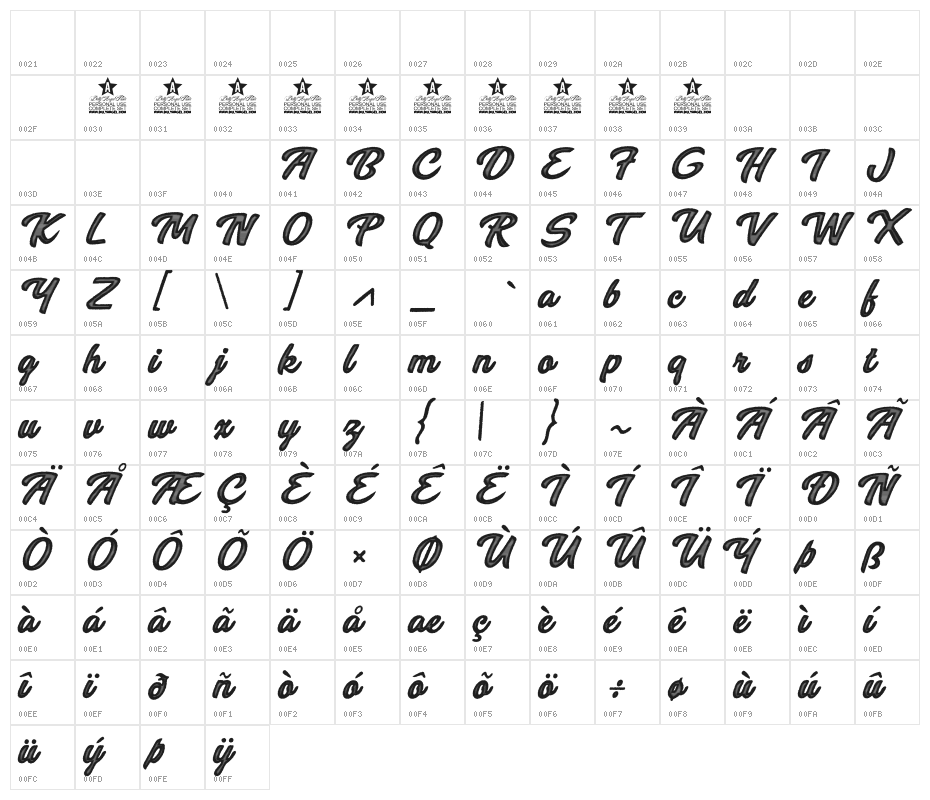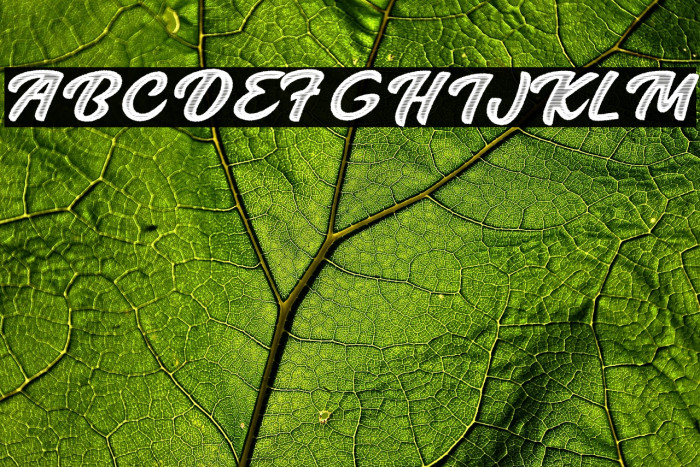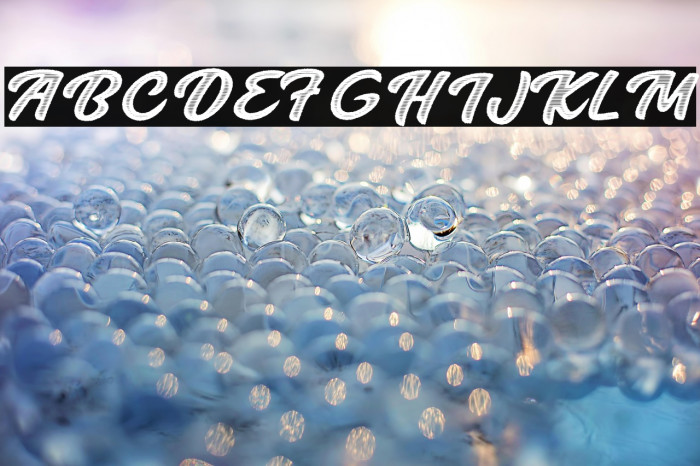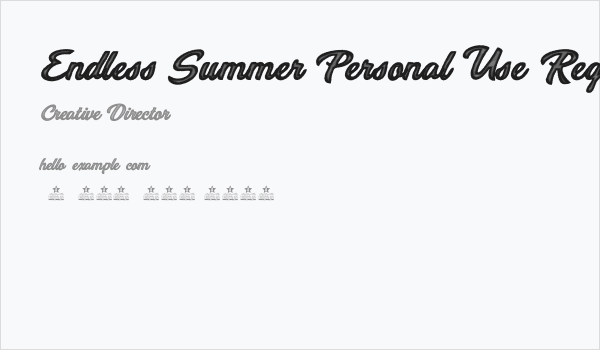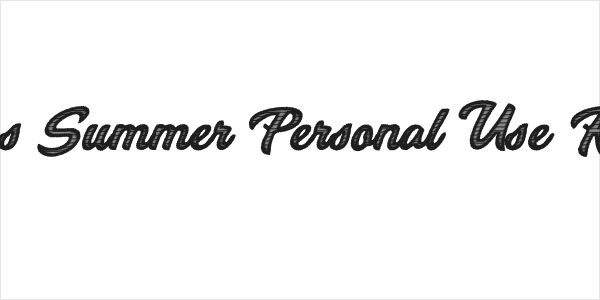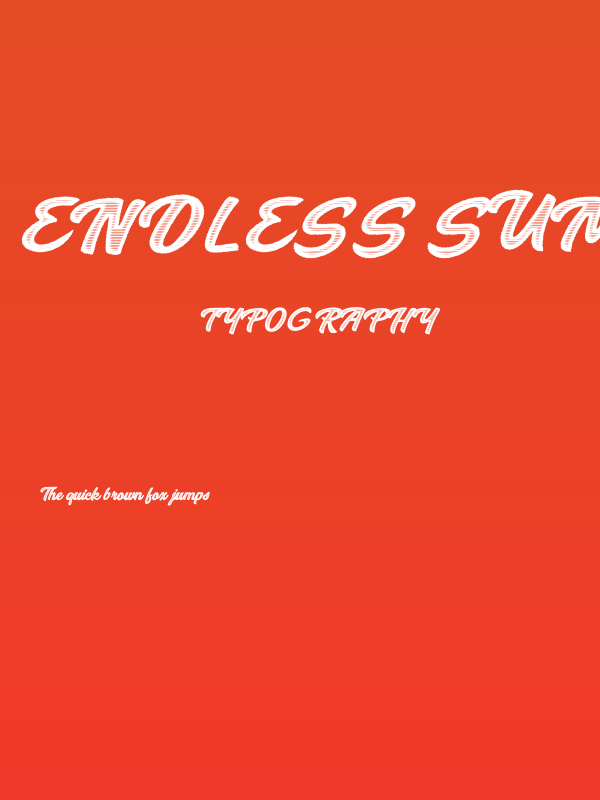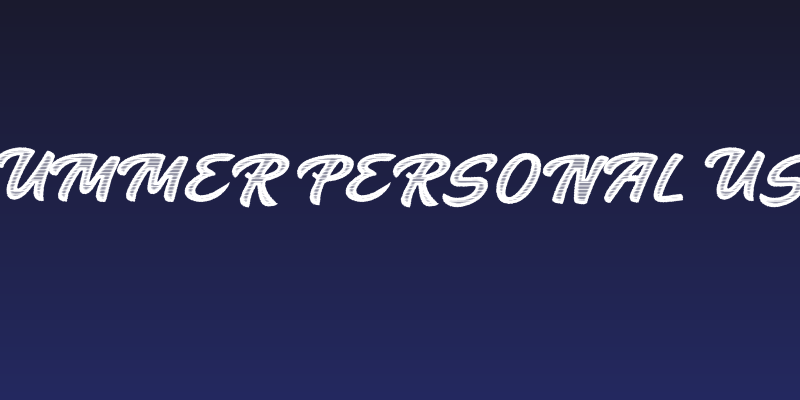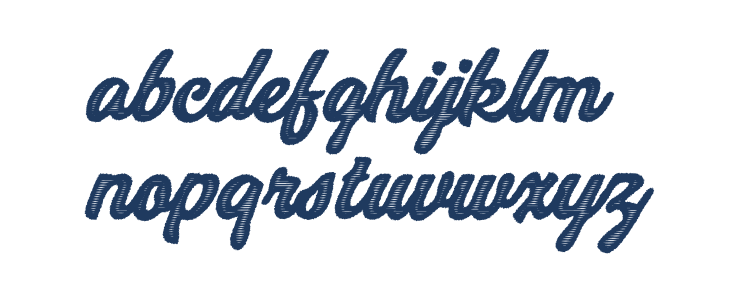
Endless Summer Personal Use Regular Font
This font features a bold and dynamic script style, characterized by its flowing, interconnected letters that mimic the fluidity of handwriting. The strokes are thick and consistent, creating a sense of movement and energy. Each character is adorned with subtle, decorative lines that add texture and depth, enhancing its visual appeal. The uppercase letters are slightly more structured, while the lowercase letters maintain a casual, relaxed feel. This font's unique design makes it stand out, offering a playful yet sophisticated look.